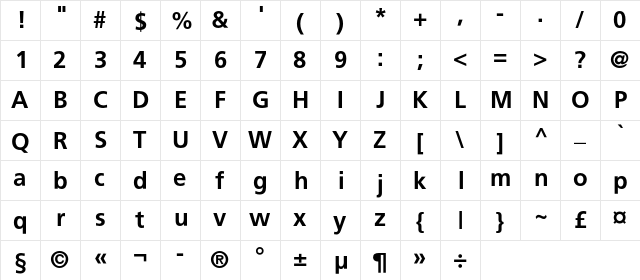
AGForeignerMediumC Regular
Design Context for AGForeignerMediumC Typeface
AGForeignerMediumC is a composed and adaptable typeface that performs quietly and consistently across a wide range of design contexts.